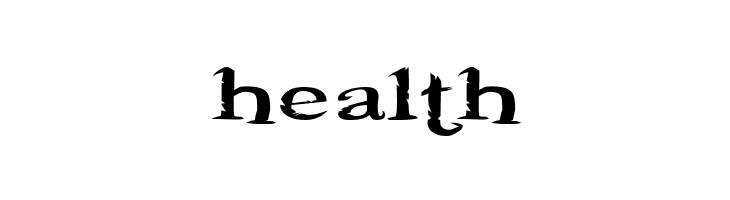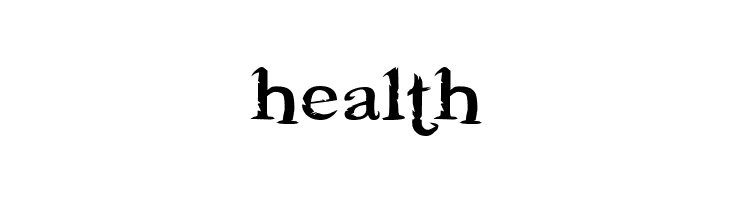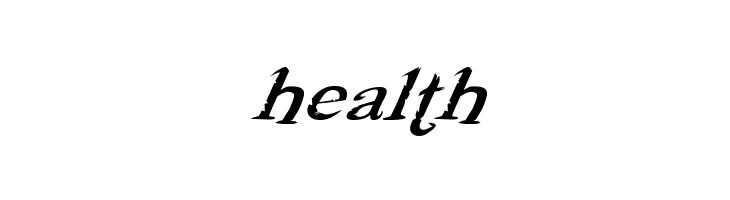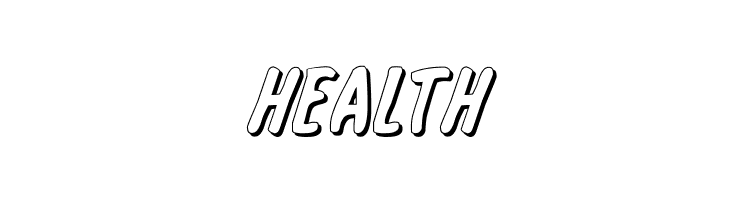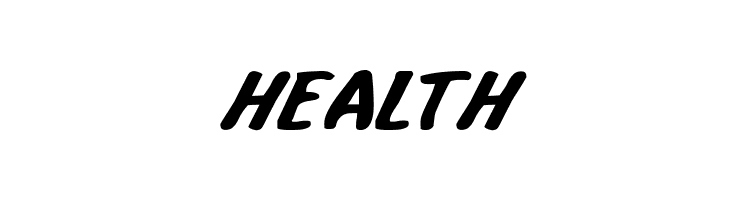
A bold, distressed serif font with a rugged, grunge-like appearance.
A bold, angular font with a distressed, dynamic style.
A bold, jagged font with sharp, irregular edges for dramatic impact.
A bold, slanted font with sharp, angular characters and a dynamic style.
A bold, geometric display font with intricate line details and a dynamic style.
A futuristic outline font with a wireframe aesthetic.
An artistic and abstract font with geometric and fluid forms.
A modern, geometric font with consistent line thickness and balanced design.
A bold, outlined font with a playful, comic book style.
A bold, rounded, and playful font with a comic book style.